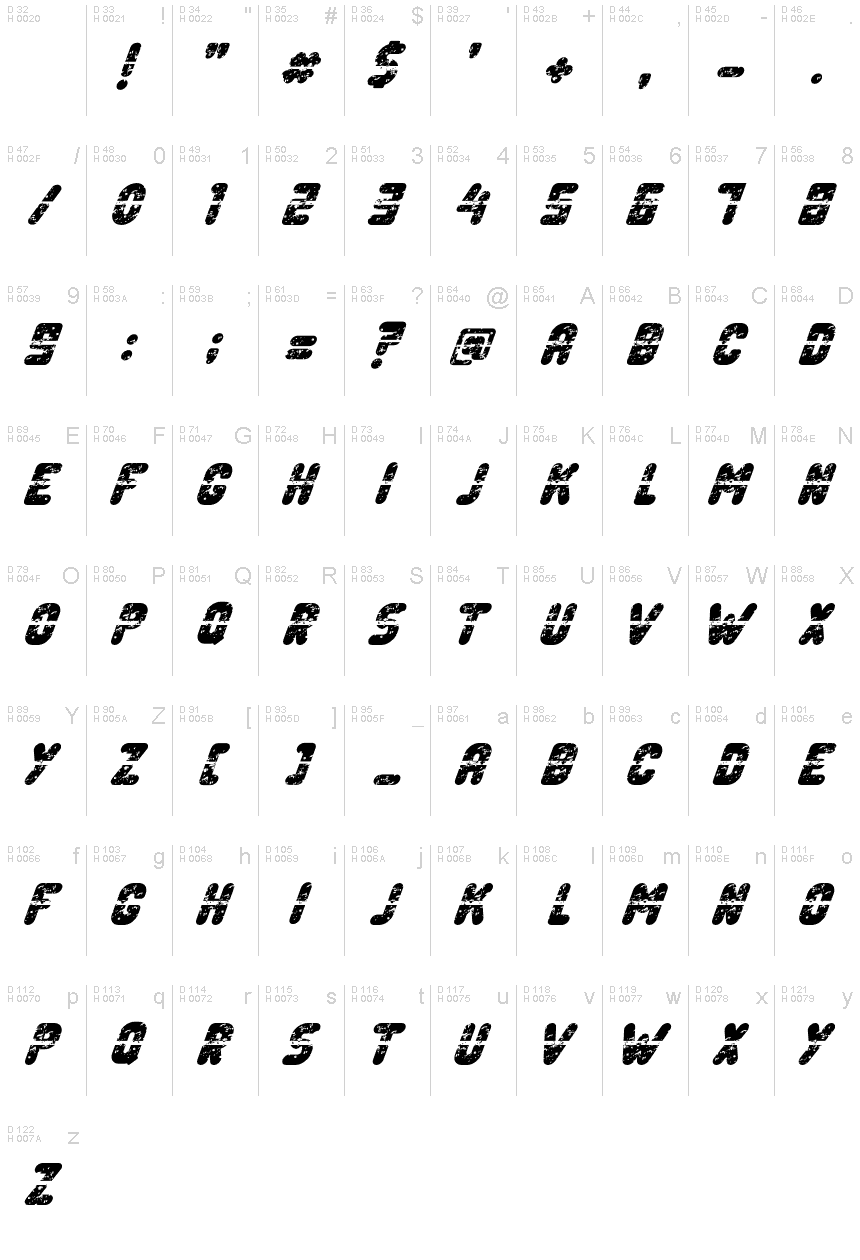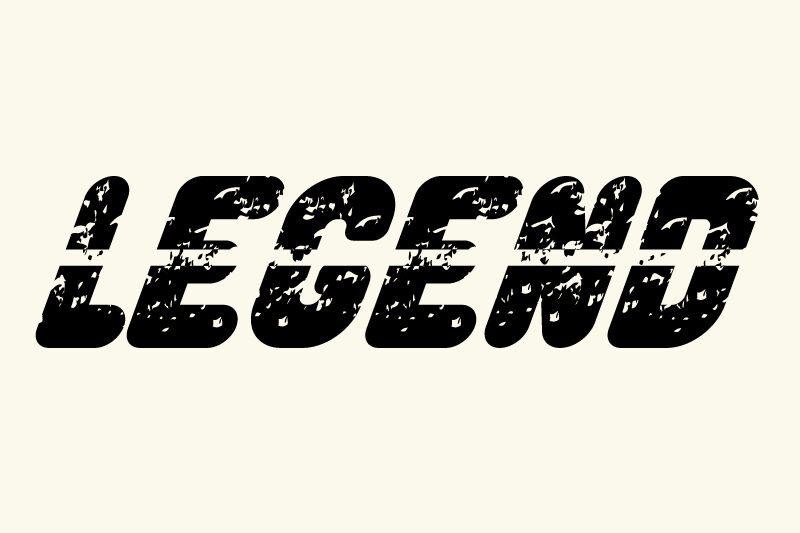
Legend Bold Italic
Legend Bold Italic, from the renowned Legend font family designed by Design Vector10, delivers a captivating blend of distinctiveness and elegance.
With its eroded style, this display font brings a touch of vintage authenticity to any project. The bold weight commands attention, while the condensed width ensures maximum impact in limited space. Perfect for eye-catching logos or headlines on posters, book covers, and album art.
Embrace the allure of Legend Bold Italic and make your designs stand out with its unique blend of boldness and refinement.